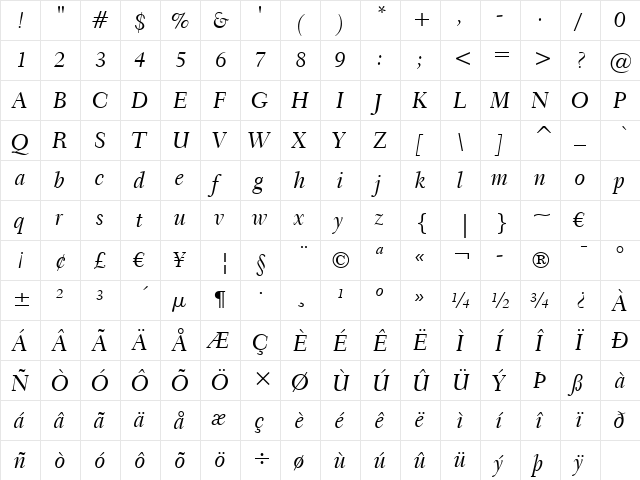
Transit551 Md BT Medium Italic
Design Context for Transit551 Md BT Typeface
Transit551 Md BT offers clean, dependable letterforms without strong stylistic allegiance, making it a practical choice for designers who need flexibility. The slanted form adds forward momentum and visual energy.